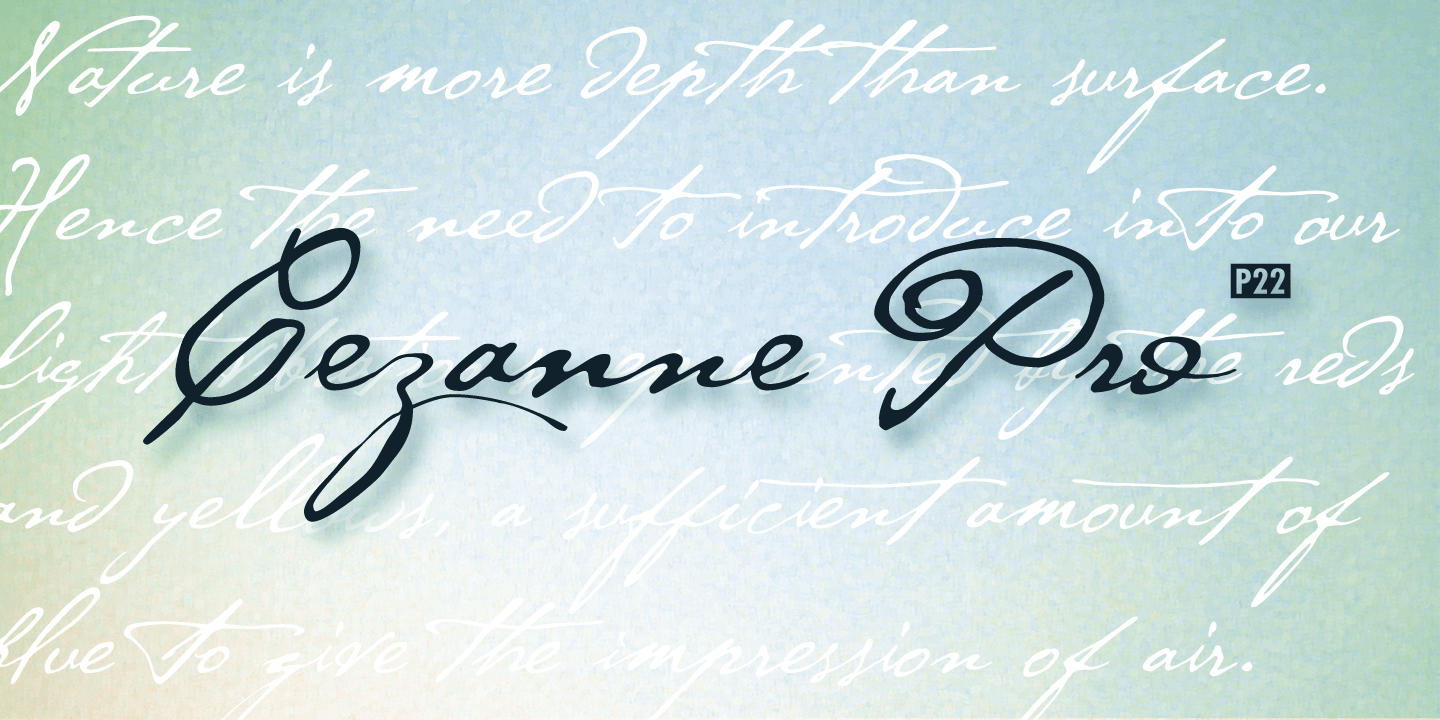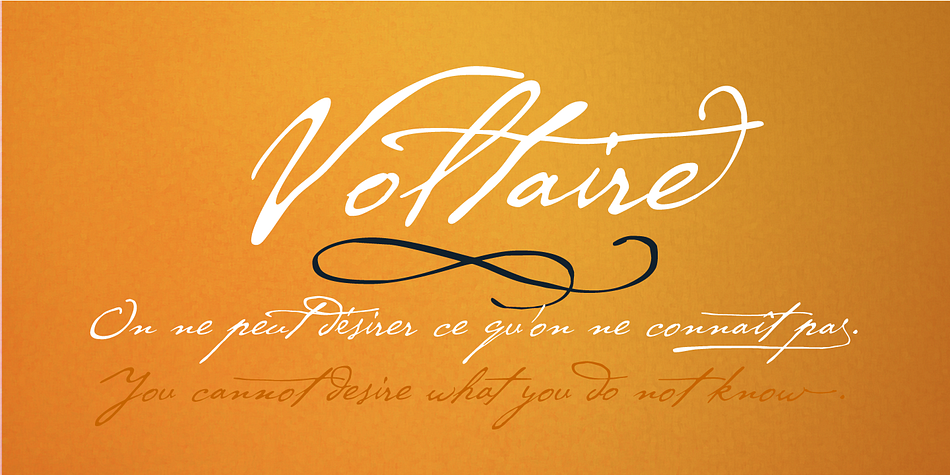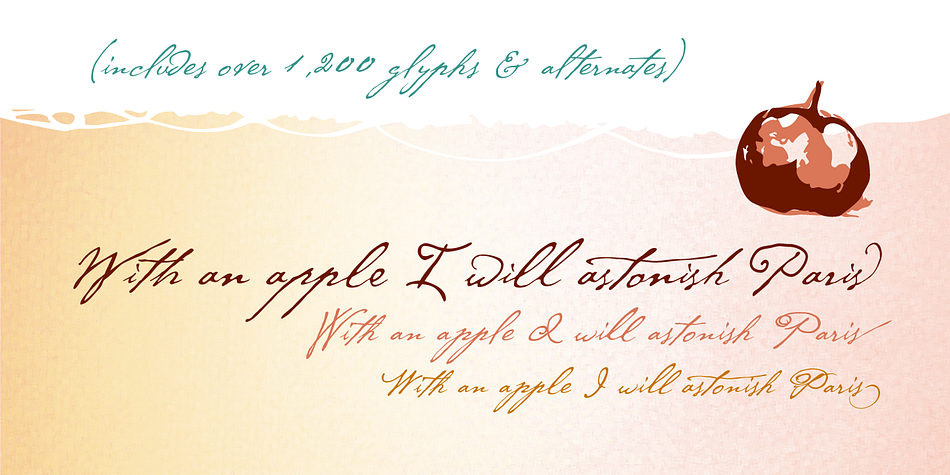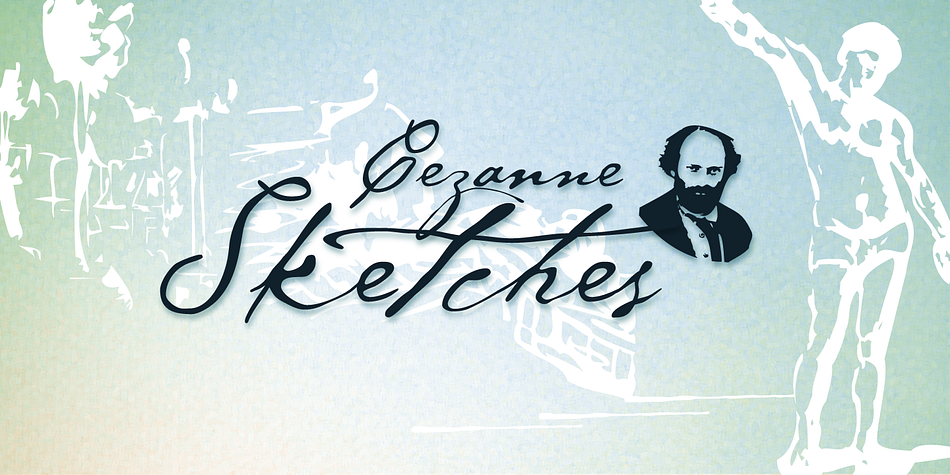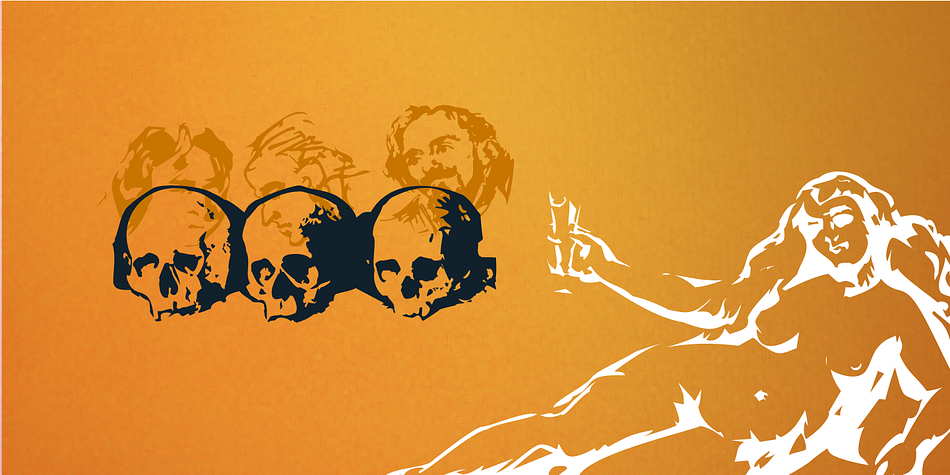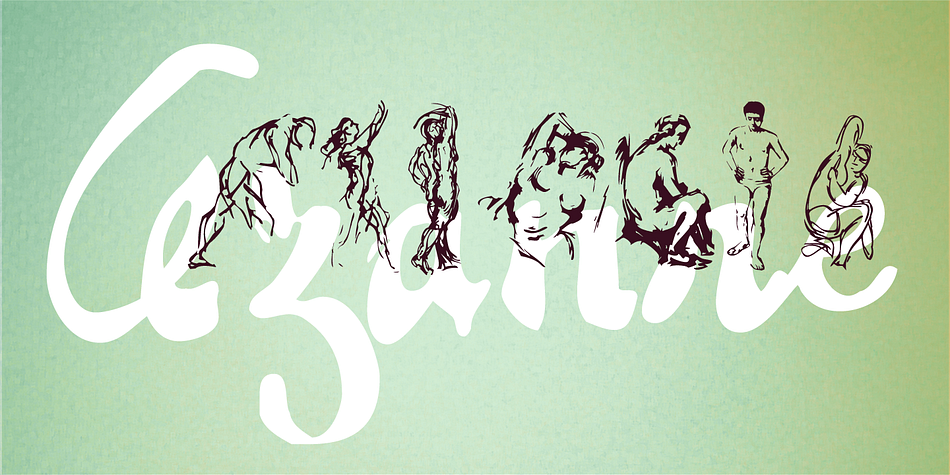
P22 Cezanne is a dingbat, historical and script font family. This typeface has seven styles and was published by P22 Type Foundry.
Best-selling font created for the Philadelphia Museum of Art. Elegant and realistic scipt font that celebrates the work of influential French artist Paul Cezanne.
Foundry | P22 Type Foundry |
Styles | Historical, Script, Dingbat |